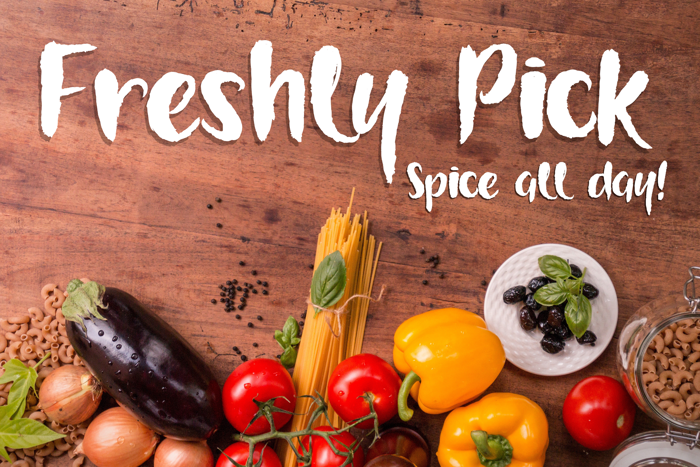
Gorgeously World DEMO Font
GORGEOUSLY WORLD
- Script brush inspired font perfect on your school projects, covers, etc.
- Lifestyle modern theme font for branding, website, mobile app etc.